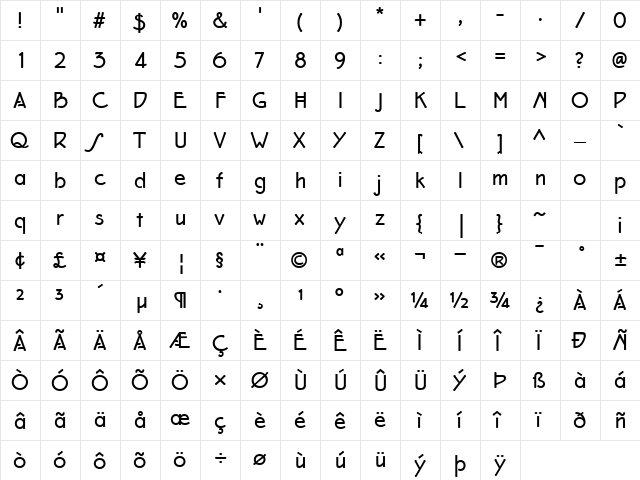
EaglefeatherFormalBold Regular Font Preview
EaglefeatherFormalBold Regular
Design Context for EaglefeatherFormalBold Typeface
EaglefeatherFormalBold offers clean, dependable letterforms without strong stylistic allegiance, making it a practical choice for designers who need flexibility. Its bold stroke weight gives it real presence on the page.